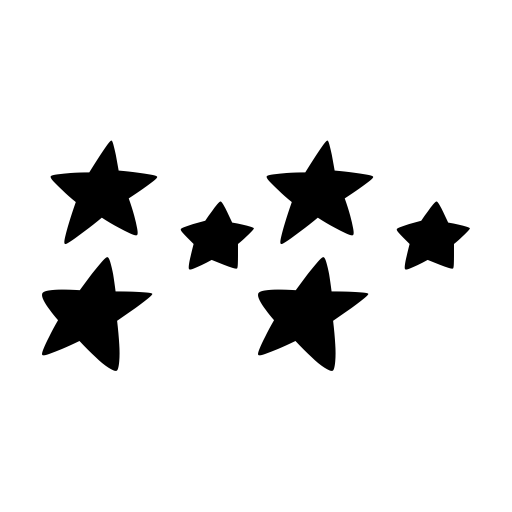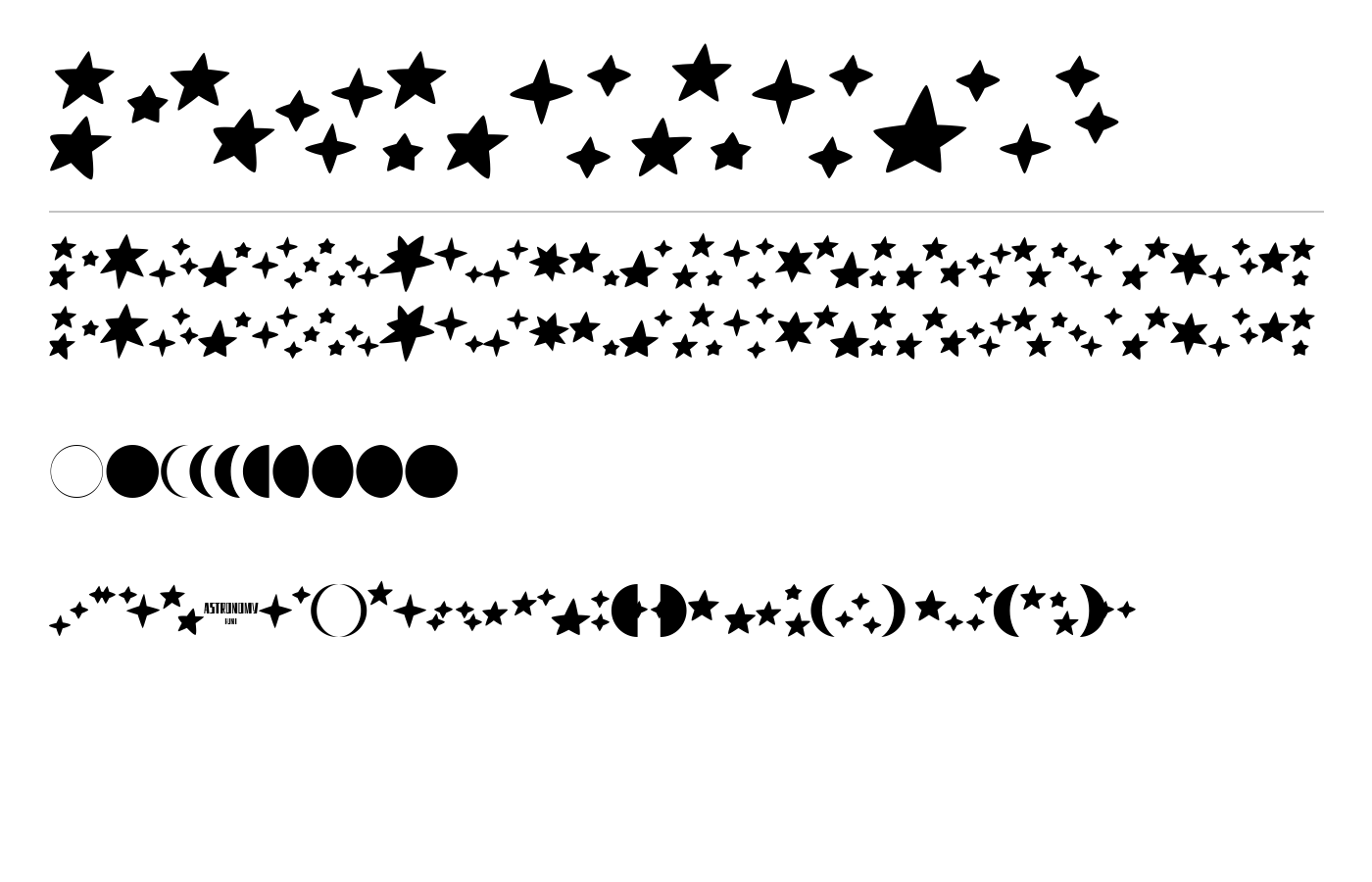
Astronomy Font is a playful and decorative display typeface composed entirely of star and moon shapes, perfect for adding a cosmic and whimsical touch to designs. Its unique symbol-based style makes it ideal for creative projects, themed invitations, or branding related to space, night, and fantasy, where it can set a fun, imaginative mood. This font works best in large sizes or as ornamental accents rather than body text due to its distinctive and highly stylized forms.
Astronomy Font
About Astronomy Font
| Font family | Astronomy Font |
| Designer | Aleksandar Stevanov |